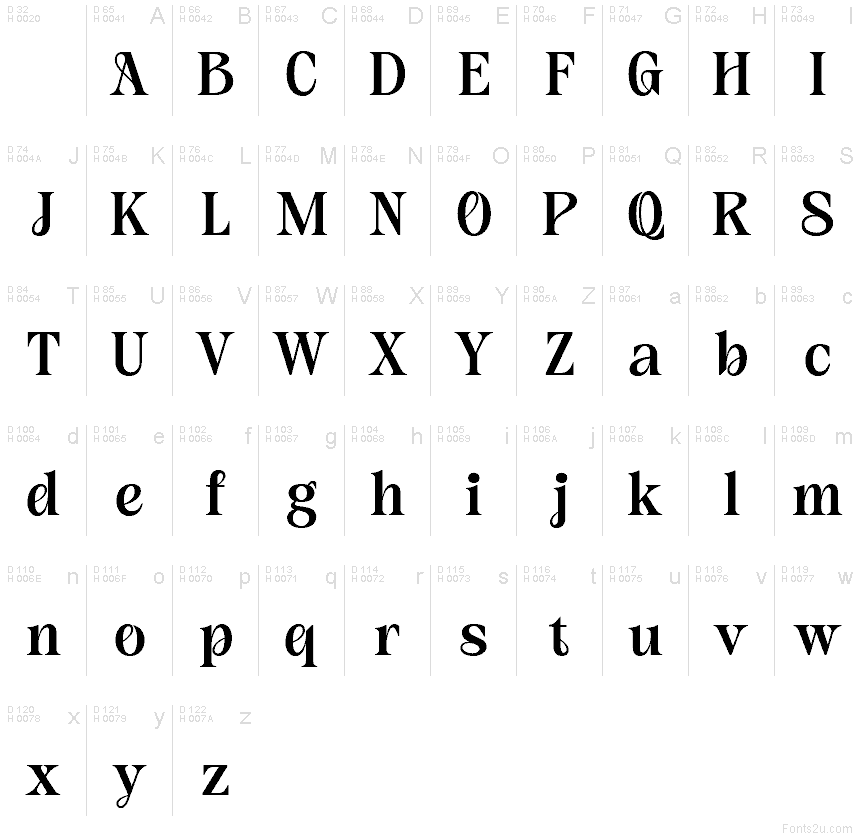
CS Siera Regular Demo
CS Siera font by Craft Supply Co. is a fancy serif font that brings ornate sophistication to your projects. It is elegant, classic, and undoubtedly impressive with traditionalist influences that are visible in every letter. This versatile font will perform professionally in branding visual identities, packaging products design, or even something as common and mundane as printed newspapers.
CS Siera stands out most when utilized in poster designs, headlines typography, logo design development & execution, magazine covers planning & layouting — even large-scale advertising billboard yet still shine on smaller mockups presentation board setup ideas too! Download this free font for your business card templates today!